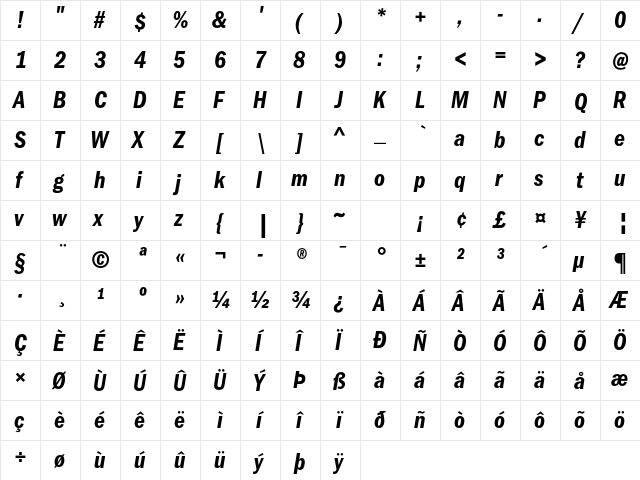
ITC Franklin Gothic Std Demi Condensed Italic Font Preview
| Style | Demi Condensed Italic |
| Designer | Vic Caruso |
Design Context for ITC Franklin Gothic Std Typeface
ITC Franklin Gothic Std takes a clean, functional approach — its unadorned letterforms prioritise legibility and work reliably across screen and print environments. The dynamic lean of this cut emphasises speed and emphasis in any layout. The condensed width makes it efficient for tight spaces without sacrificing legibility.
Font Pairing: Works well alongside a characterful serif or display font that can carry the expressive load while ITC Franklin Gothic Std handles the functional copy.
Pro Tip: Use ITC Franklin Gothic Std tightly set in headlines and banners — its condensed proportions make it ideal for maximum impact in minimum horizontal space.